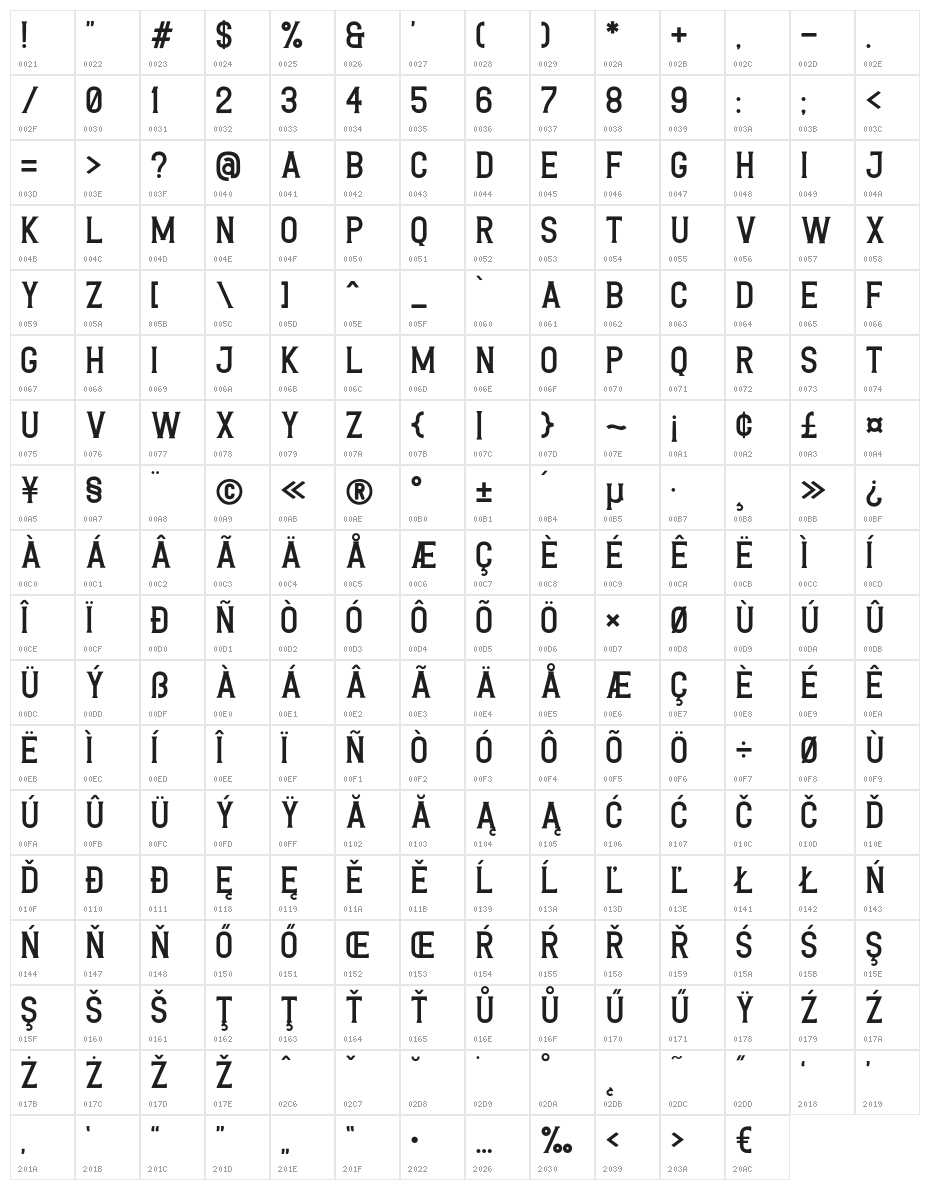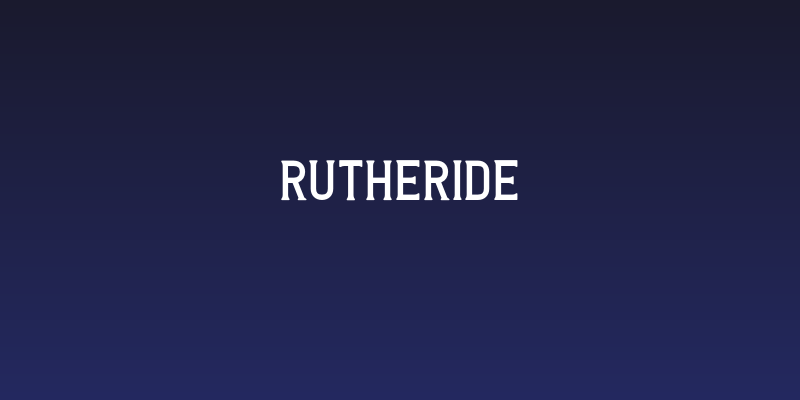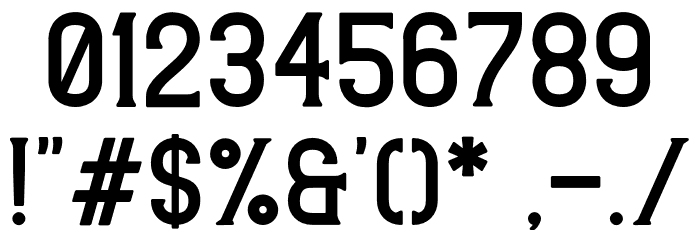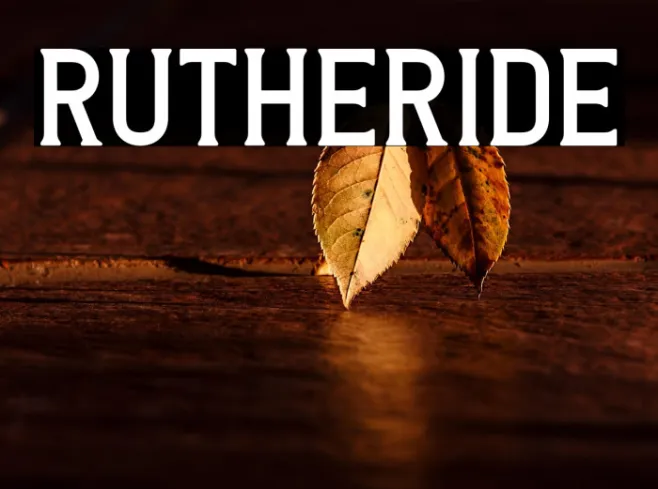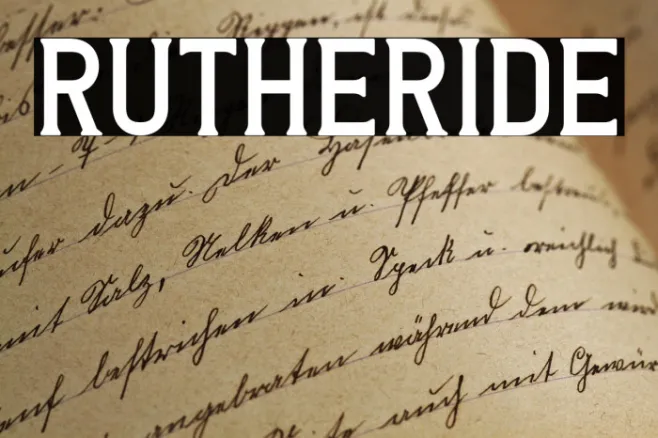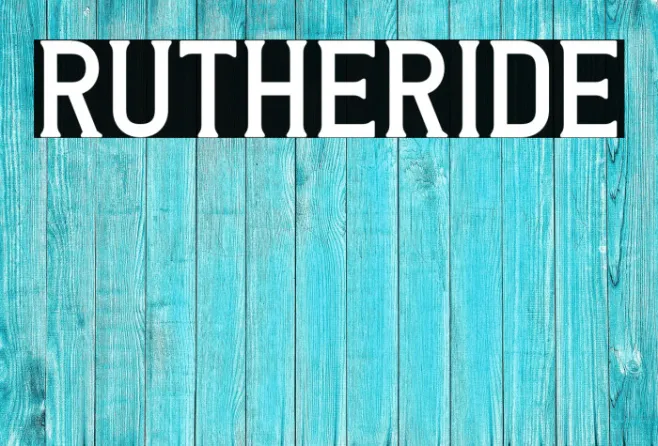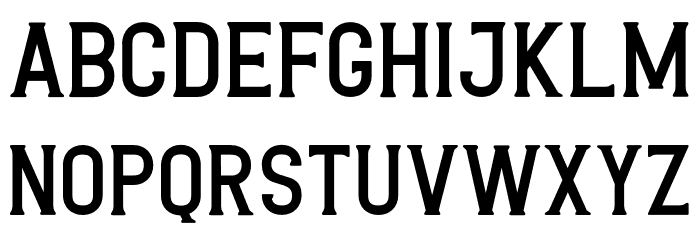
Rutheride Font
Rutheride Description
This font features a bold and robust design with strong, angular serifs that give it a commanding presence. The uppercase letters are tall and slightly condensed, providing a sense of authority and stability. The lowercase letters maintain a consistent weight, ensuring readability while adding a touch of elegance. The numerals are clear and distinct, making them ideal for display purposes. Special characters are well-defined, enhancing the font's versatility. Overall, this typeface combines traditional serif elements with a modern twist, making it suitable for a variety of applications.
| Proposed Projects | Ideal for branding, headlines, posters, and editorial design. |